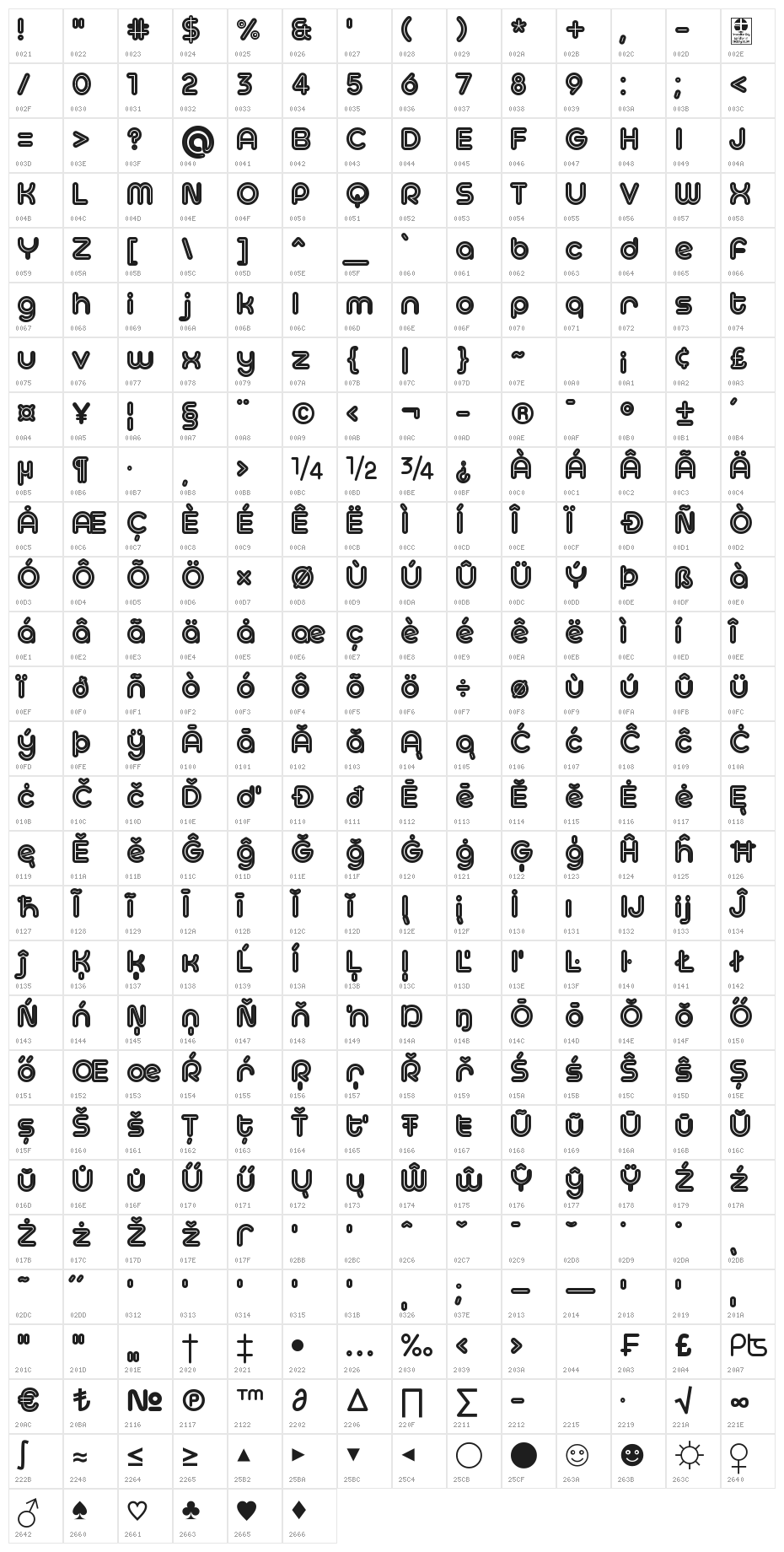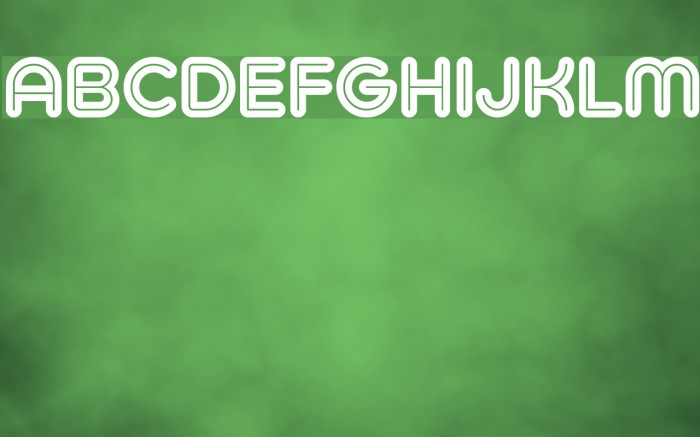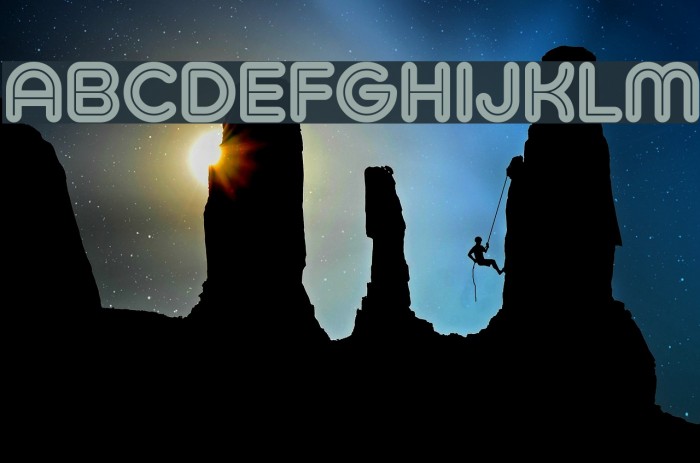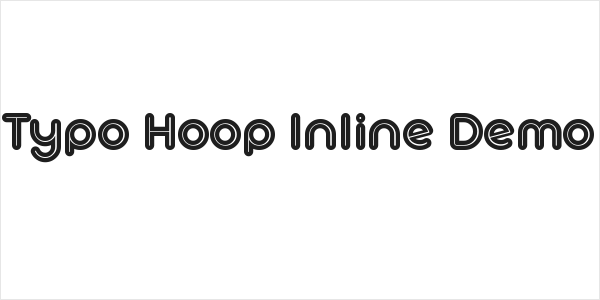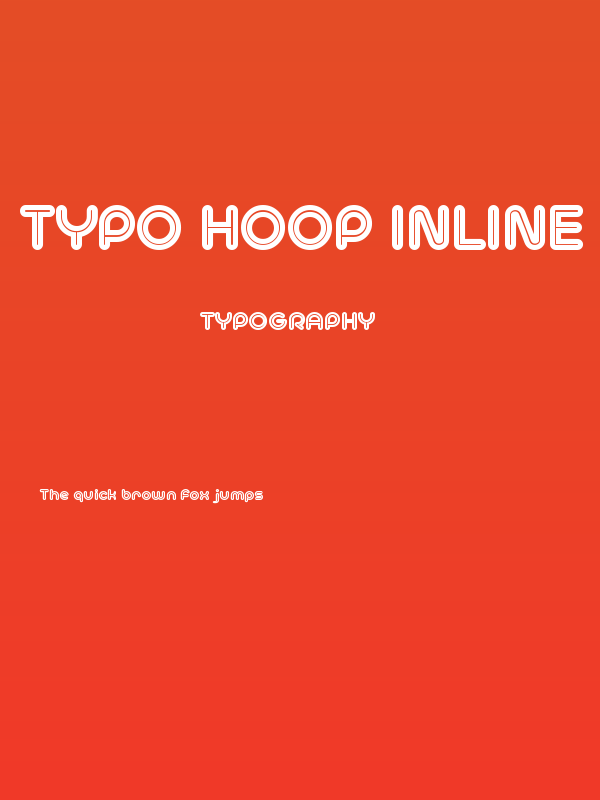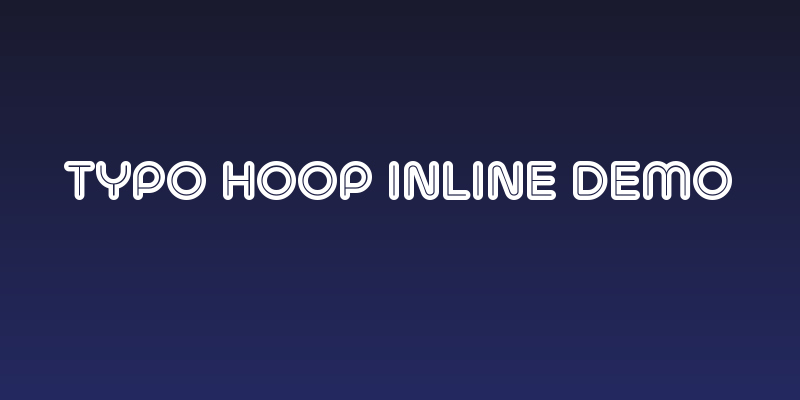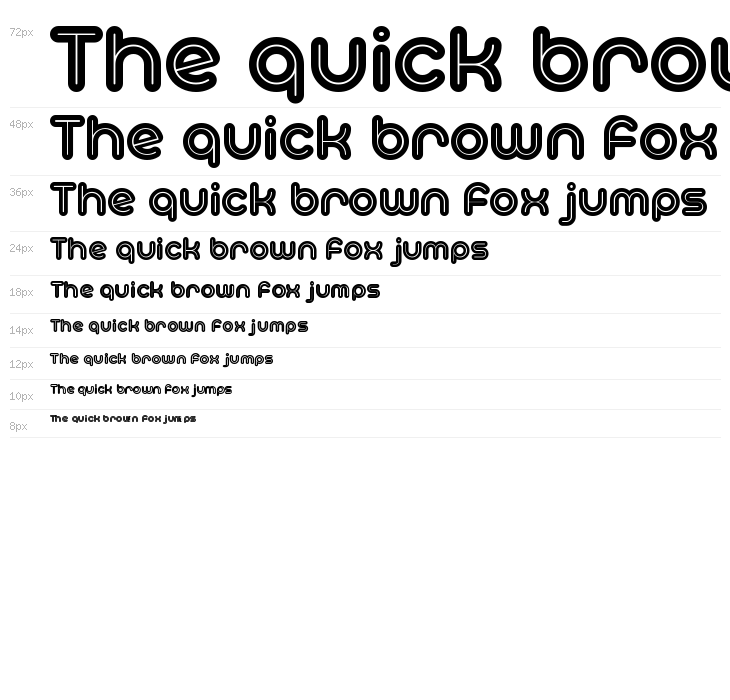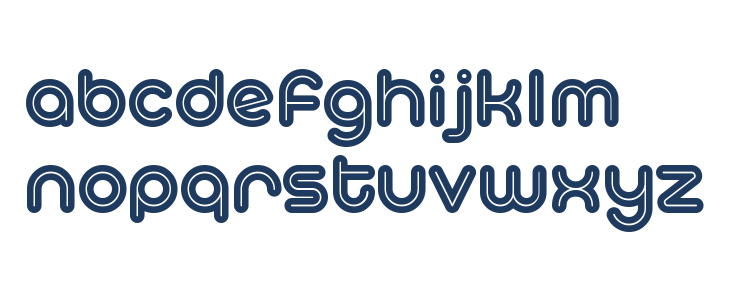
Typo Hoop Inline Demo Font
Typo Hoop Inline Demo Description
This font features a bold, inline style with rounded edges, creating a playful and modern appearance. The characters are uniformly thick with a consistent inline cutout that adds depth and dimension. The uppercase and lowercase letters maintain a cohesive look, while the numerals and special characters complement the overall design. The font's geometric structure and smooth curves make it highly legible and visually appealing, suitable for various creative applications.